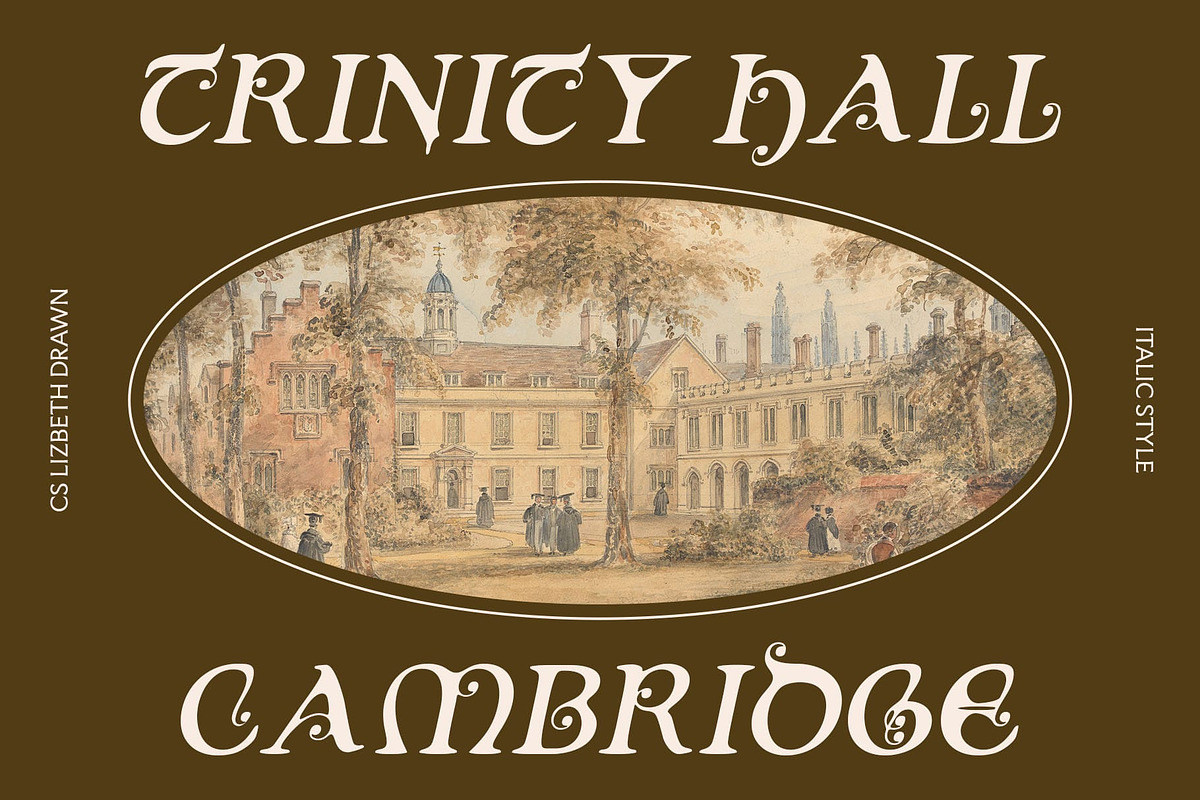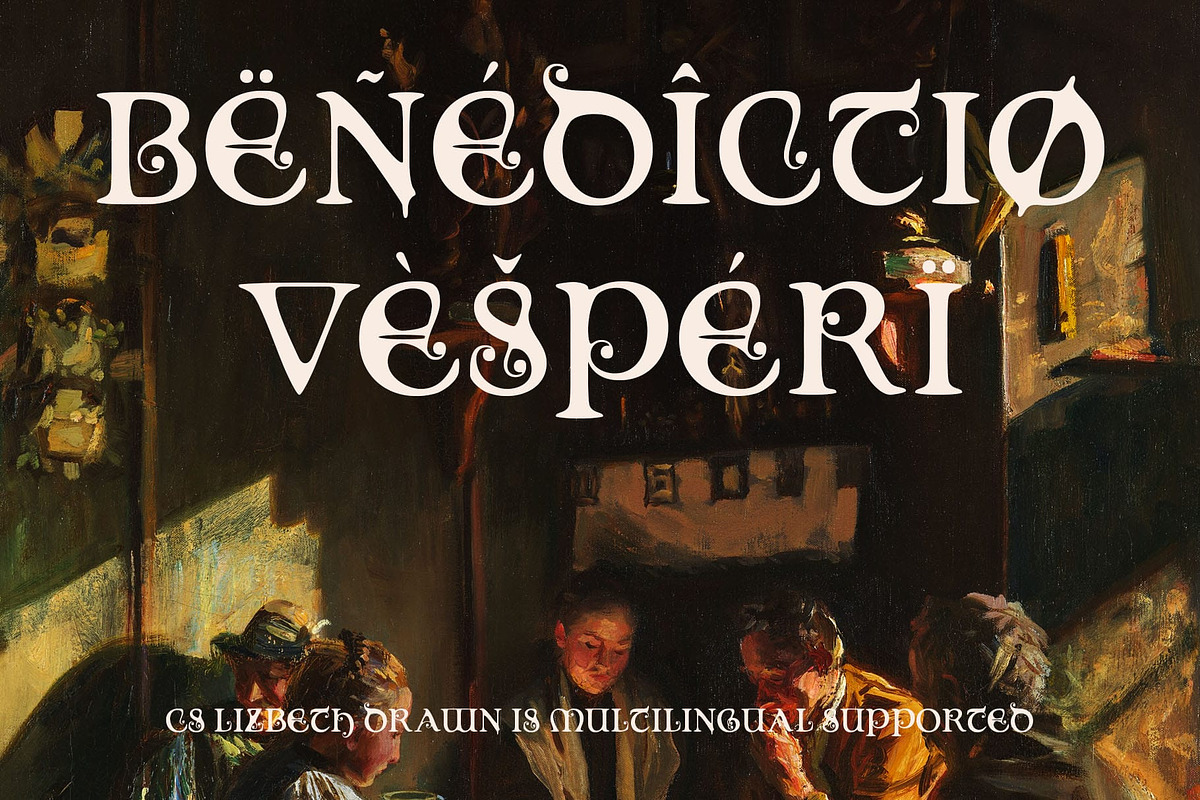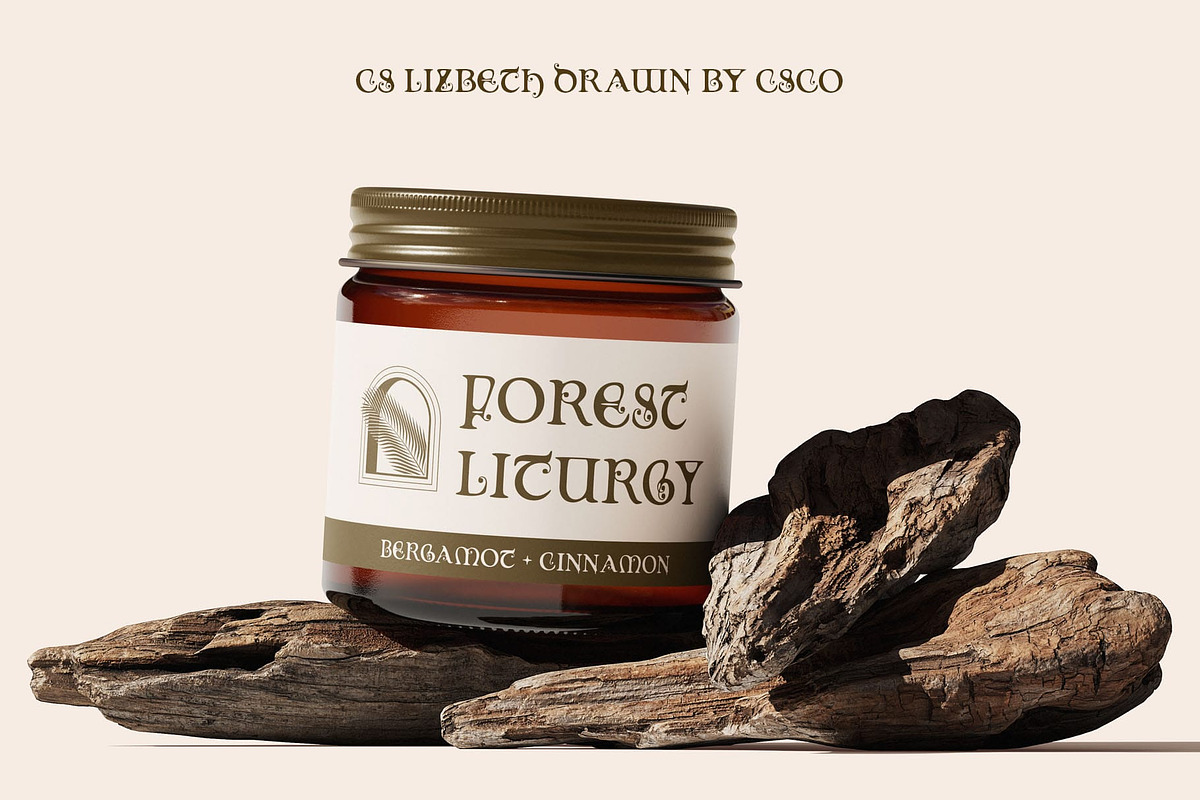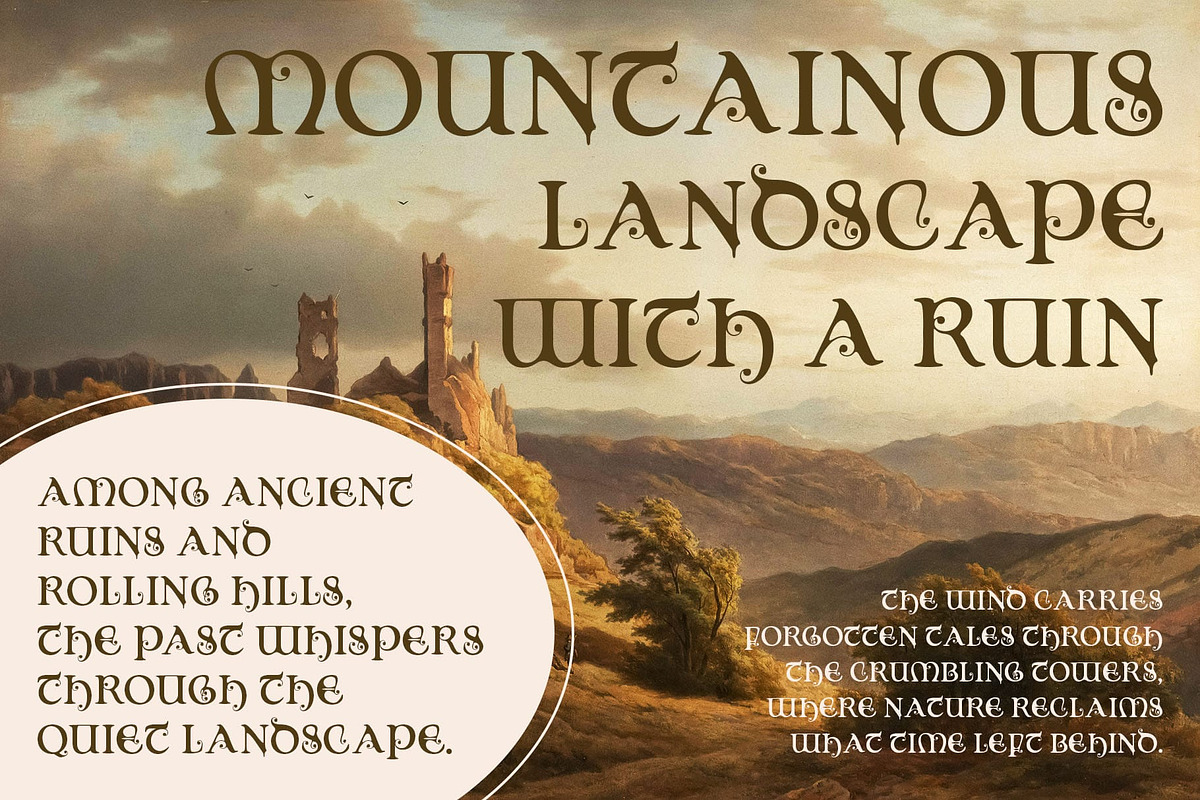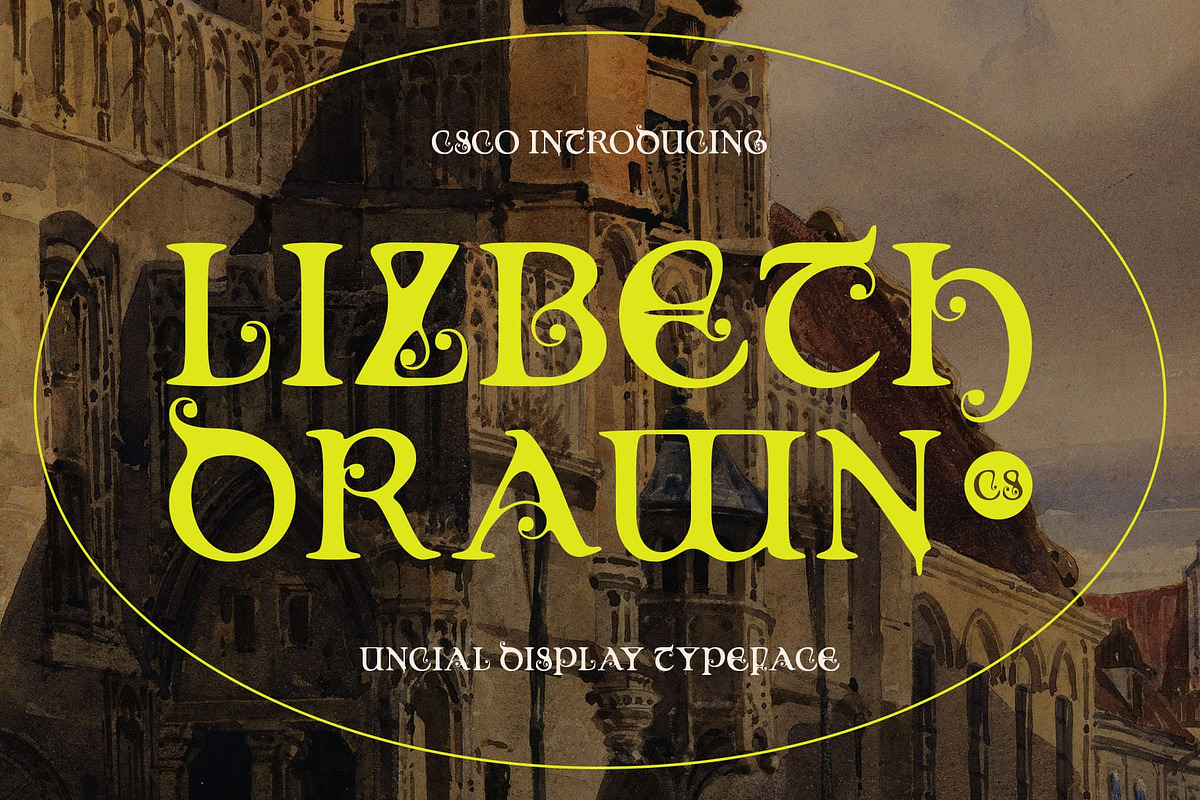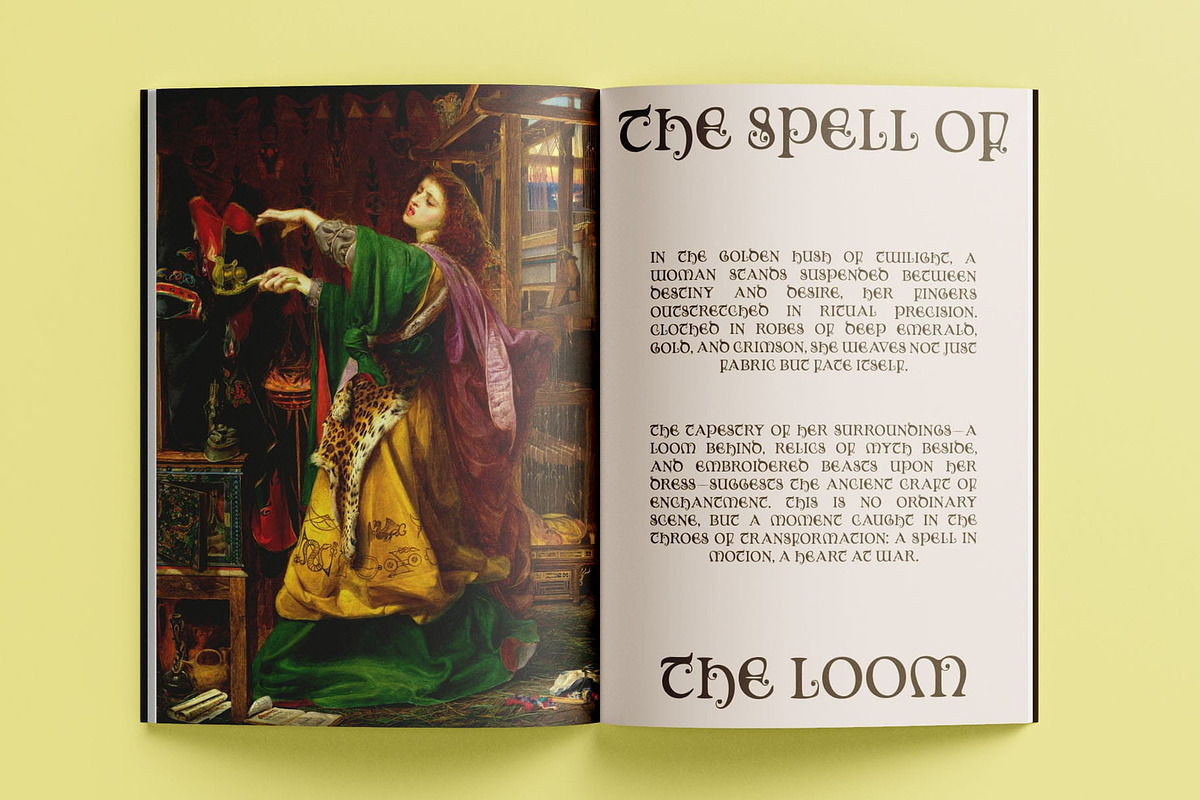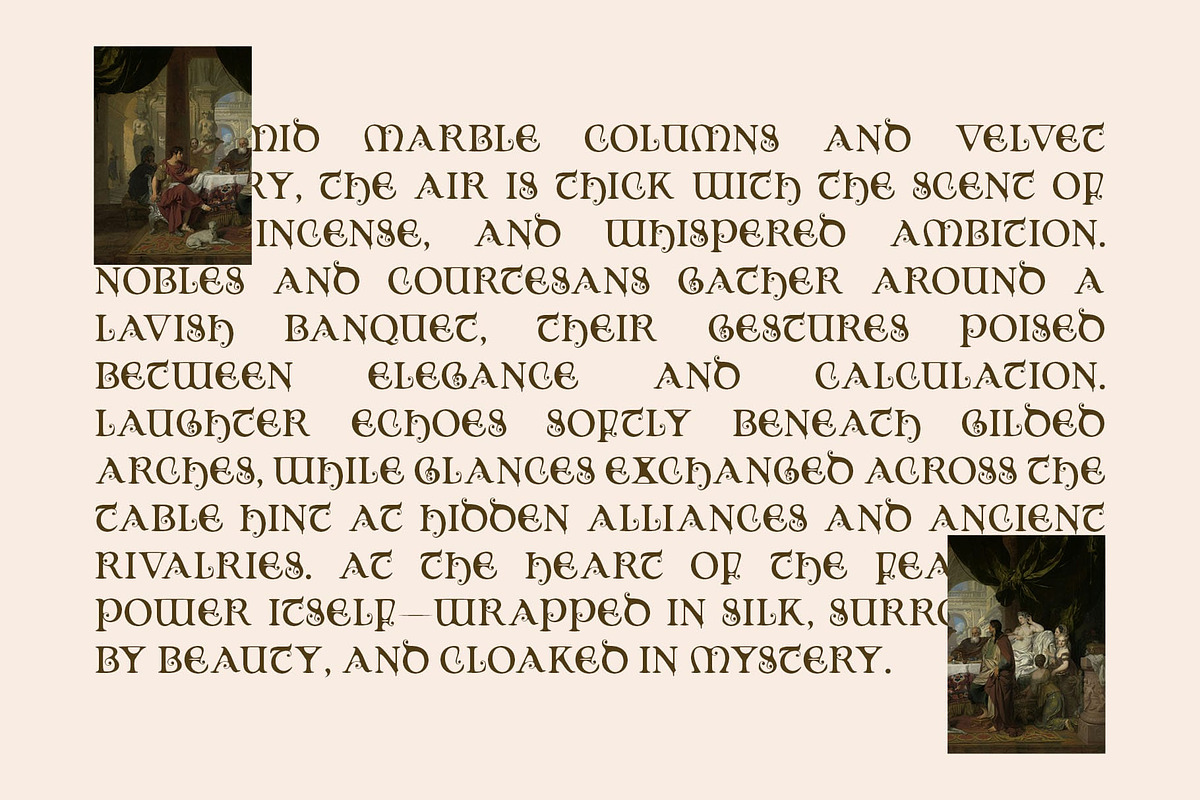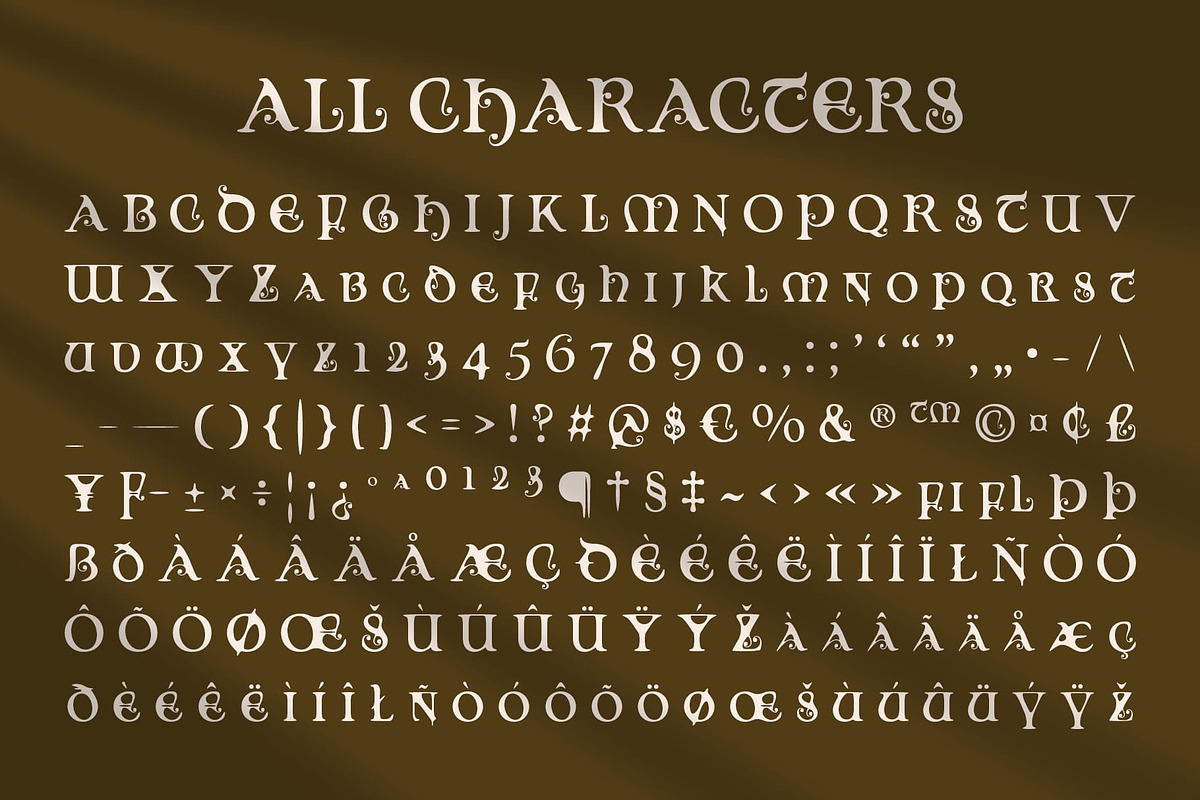
CS Lizbeth Drawn
CS Lizbeth Drawn – Uncial Elegance with a Contemporary Handcrafted Touch
Display Serif Font with Uncial Influence CS Lizbeth Drawn is a modern display serif font that channels the timeless elegance of uncial forms. With rounded, manuscript-inspired letterforms, it brings a sense of heritage and tradition into contemporary design spaces. The structure is softened yet refined, offering a graceful silhouette rooted in history but adapted for modern aesthetics.
Clean Lines and Contemporary Proportions While grounded in classic calligraphy, this decorative font features simplified lines and well-balanced proportions that lend a modern sensibility. Its clean, flowing curves give the font an elegant rhythm that’s visually engaging without being overly ornate—ideal for sophisticated layouts that blend the past with the present.
Drawn Effect for Organic and Personal Character A subtle drawn effect runs throughout the typeface, adding a handcrafted texture that enhances its expressive personality. This detail gives the font an organic, artistic feel—perfect for projects where a touch of warmth and individuality is essential.
Ideal for Luxury Branding, Editorials, and Artistic Design This beauty font is especially well-suited for luxury branding, refined editorial design, fashion publications, or artistic visual projects. Its unique blend of historical charm, modern clarity, and handcrafted flair makes it a standout choice for designers who seek elegance with character and sophistication with soul.